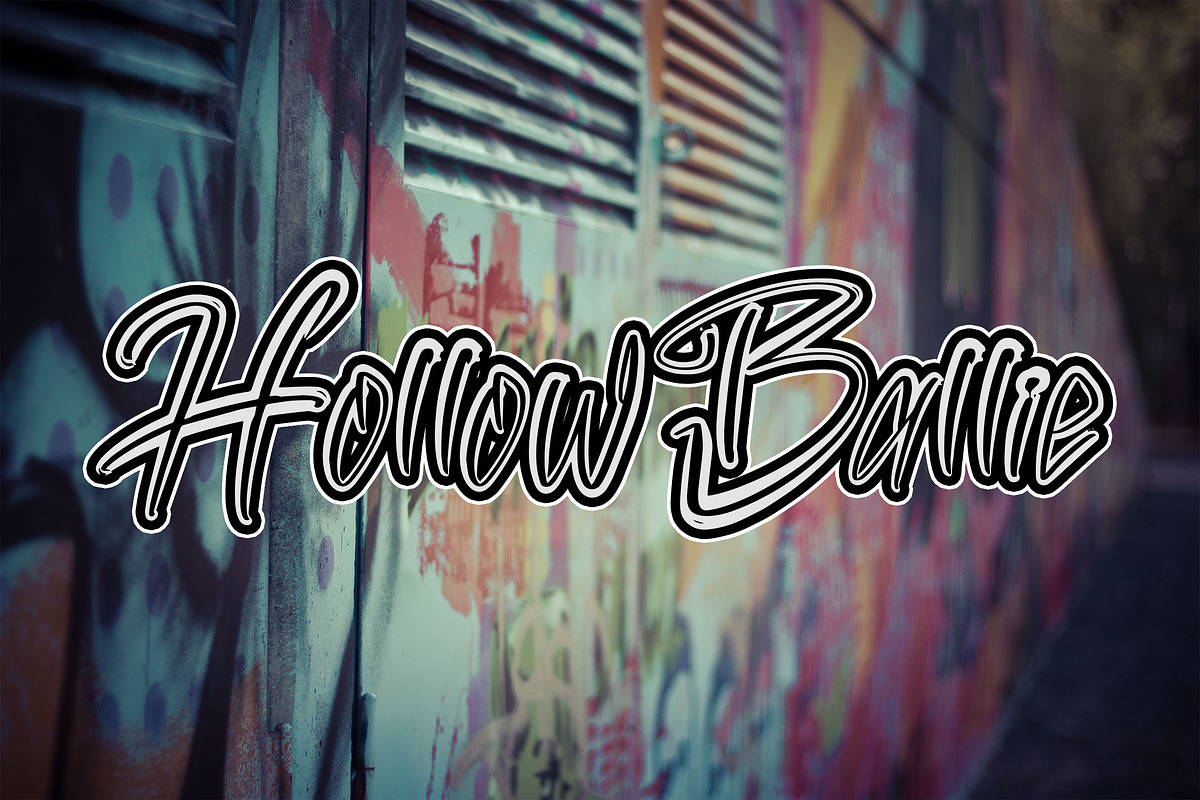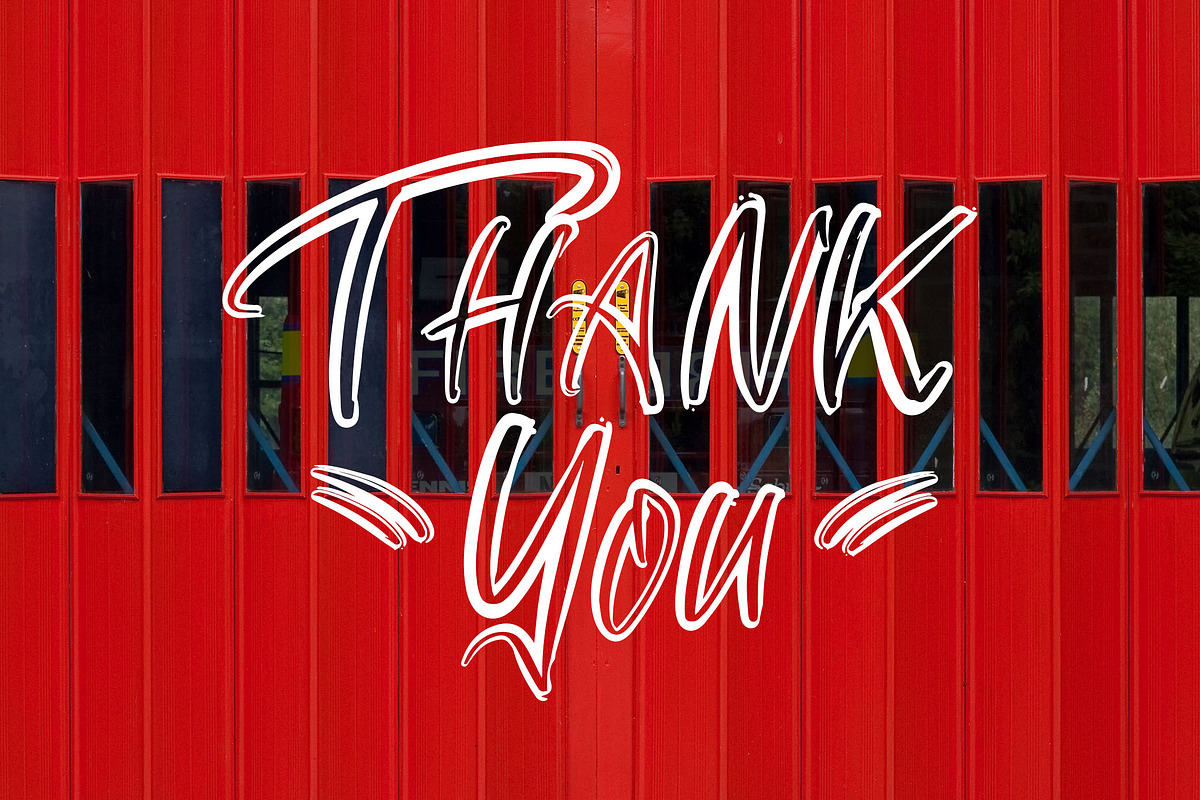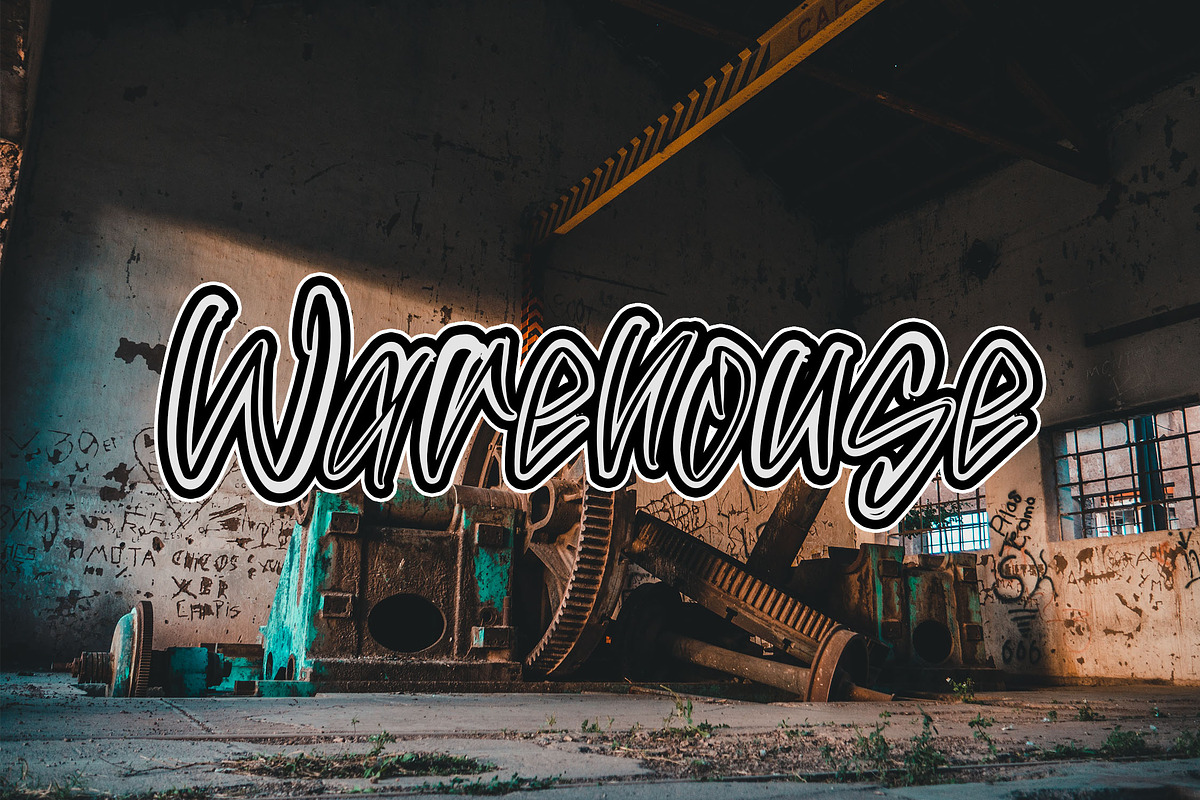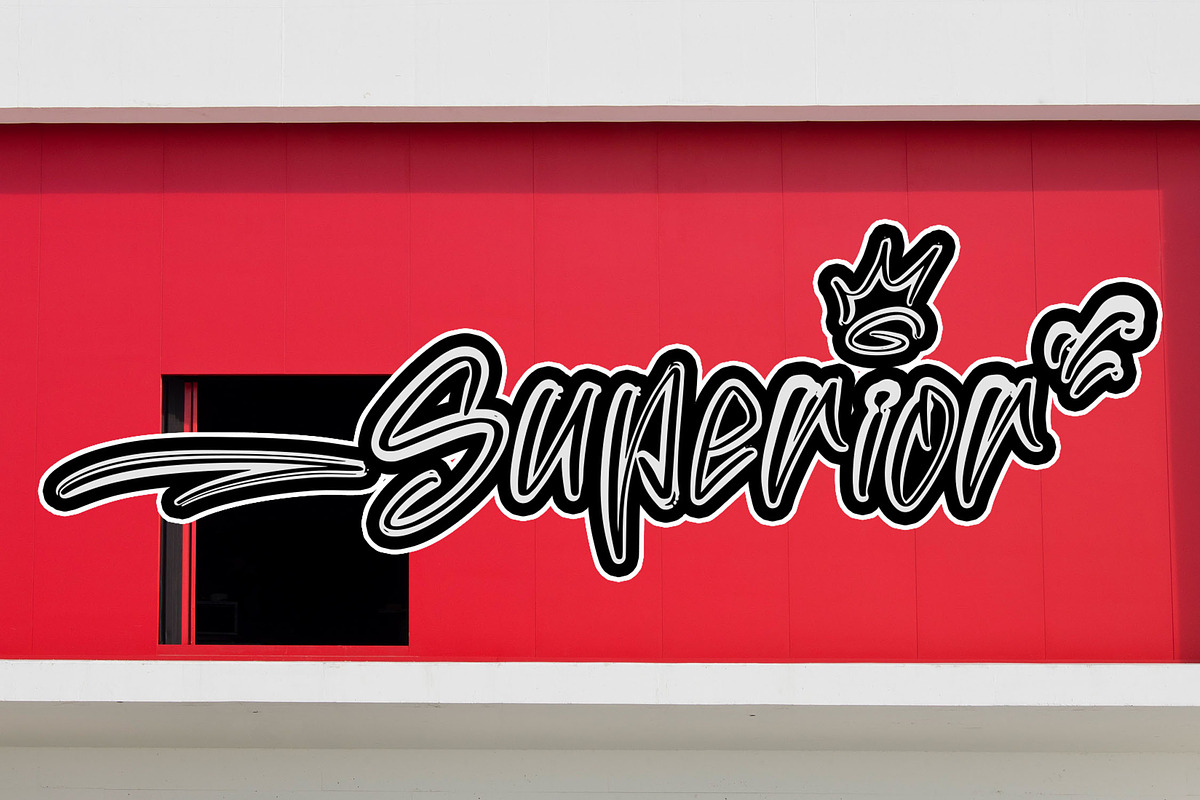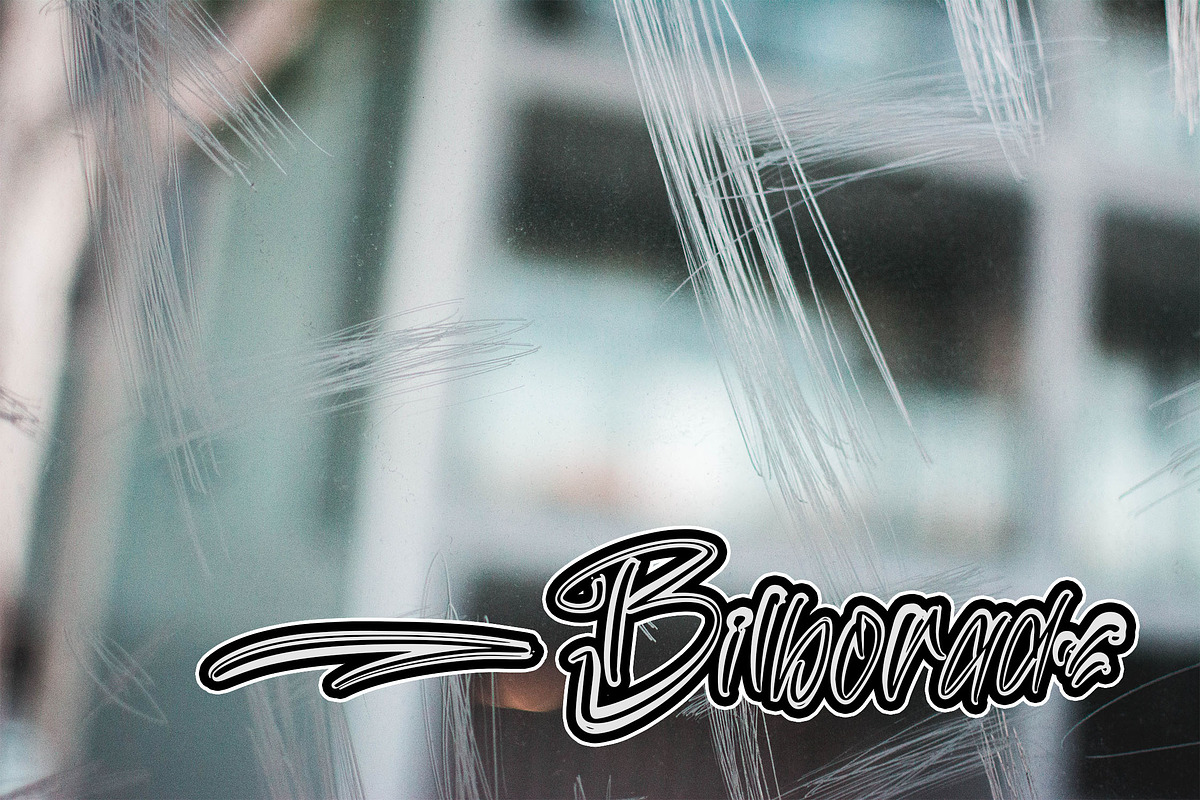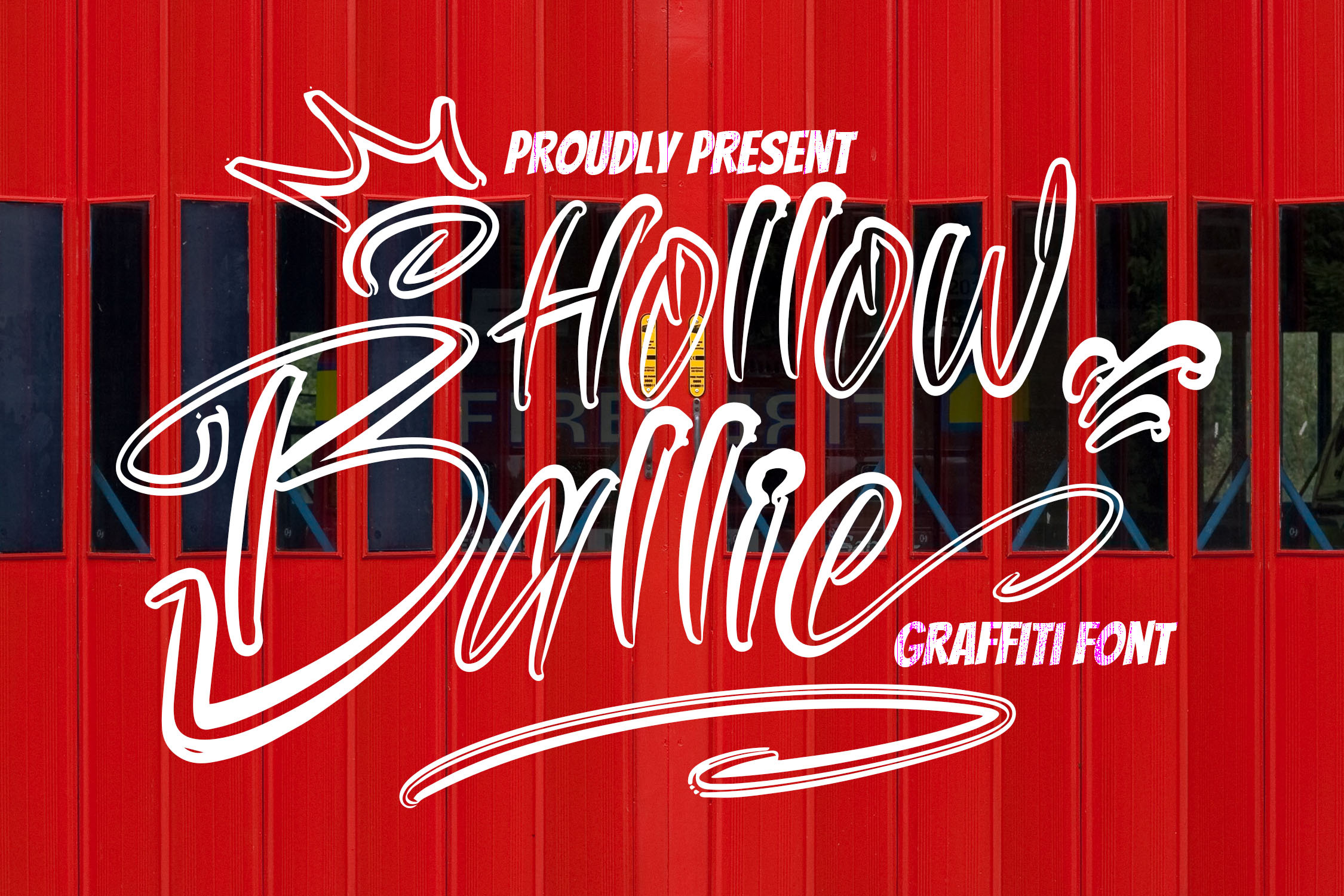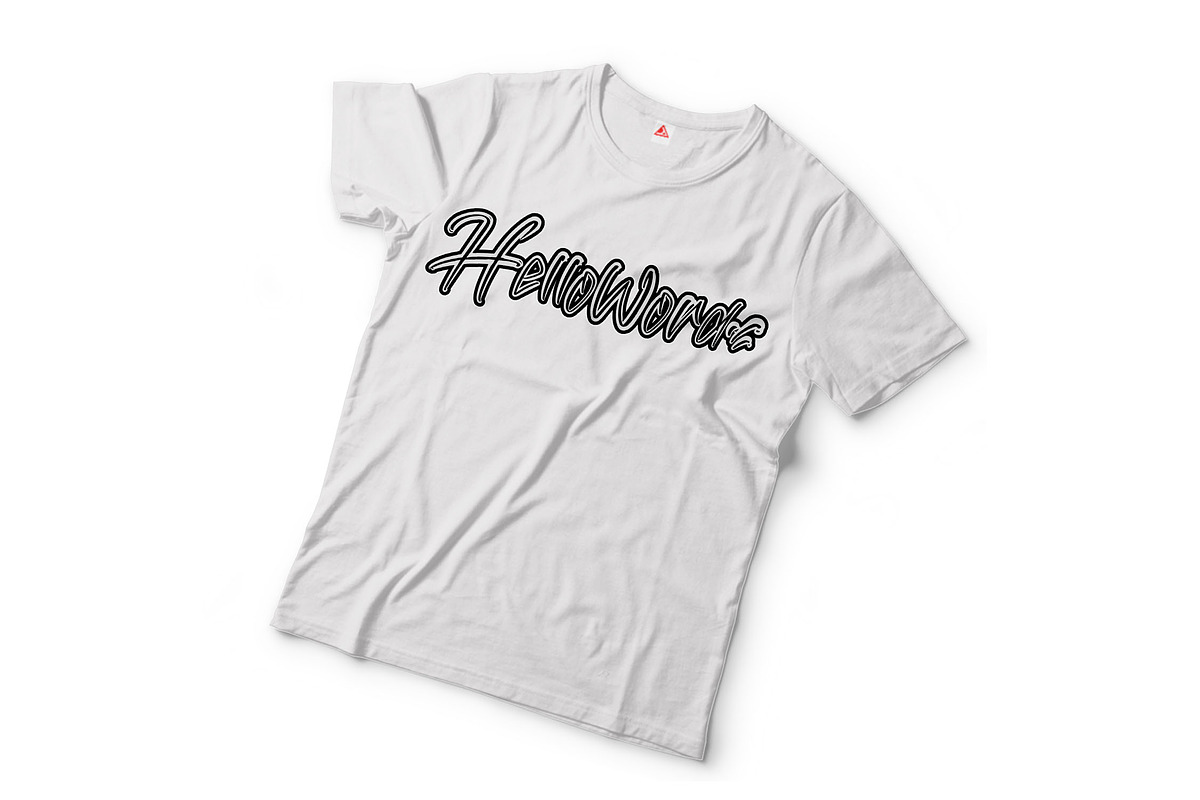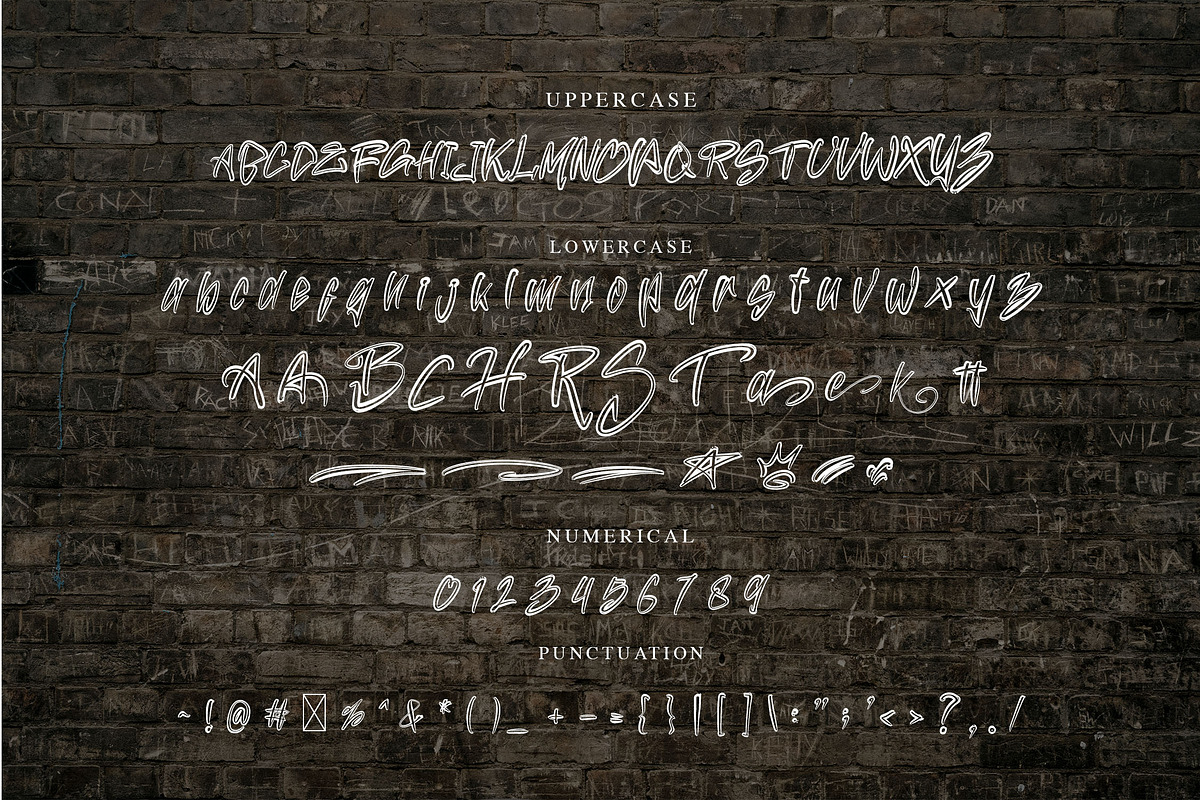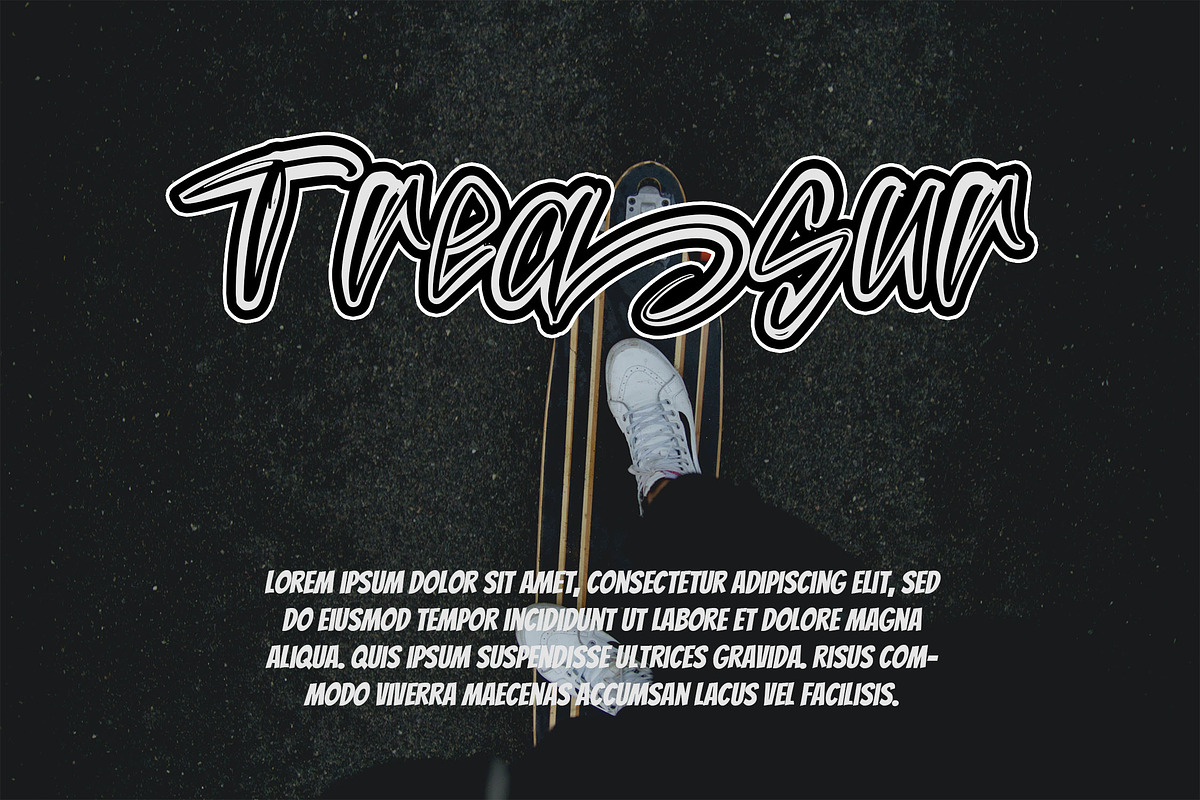
Hollow Ballie - Graffiti Font
Hollow Ballie is a Graffiti font with scratch outline brush style that is very suitable for the publication needs of street fashion, magazines, t-shirt design, and can also can be used as a Graffiti logotype. This font is designed with a very beautiful graffiti style with various features in it. Made with hand scratches directly and then processed into font processing software.
- Stylistic Alternate